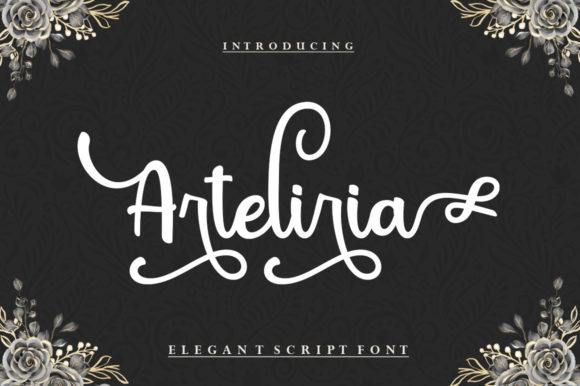
The Designer’s Delight: Arteliria Script Font
I still remember the time I was working on a fashion branding project, and my client asked me to create a logo that exuded elegance and sophistication. I spent hours scouring the internet for the perfect font, but nothing seemed quite right. That was until I stumbled upon Arteliria Script Font. It was love at first sight! ✨
Arteliria Script is a beautiful, well-balanced, and vintage-styled script font that has become a staple in my design toolkit. Its smooth curves and flowing lines make it perfect for fashion branding, editorial designs, and any project that requires a touch of elegance.
- ✨ Beautiful, smooth curves that make it a joy to work with
- ✅ Well-balanced design that works perfectly for both headings and body text
- 🎉 PUA encoded, making it easy to access all glyphs and swashes
- 💻 Highly versatile and works well for a variety of design projects
While Arteliria Script is an amazing font, there are a few things to keep in mind: ⚠️
- 🤔 Some users may find the font a bit too ornate for certain projects
- ⚠️ May not work well for very small text sizes or body text
The Designer Inspiration Behind Arteliria Script
Arteliria Script was designed with the goal of creating a beautiful, elegant font that captures the essence of vintage typography. The designer drew inspiration from classic script fonts, adding a modern twist to create a unique and versatile font.
Q: What is PUA encoding, and how does it work?
A: PUA (Private Use Area) encoding is a way of encoding fonts that allows designers to access additional glyphs and swashes. This means that you can easily access all the characters and features of Arteliria Script without having to use complex keyboard shortcuts.
Q: Is Arteliria Script suitable for body text?
A: While Arteliria Script is a beautiful font, it’s best suited for headings and titles rather than body text. The font’s ornate nature can make it difficult to read in large blocks of text.